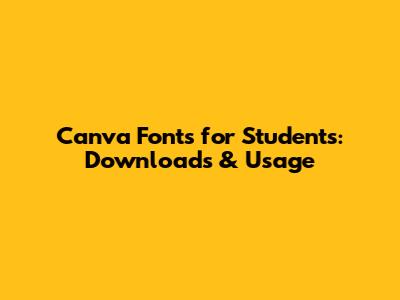
- Serif Fonts: These fonts have small decorative strokes at the ends of the letters. They're often used for a more traditional or formal look and are great for body text in documents.
- Sans-Serif Fonts: These fonts don't have those decorative strokes, giving them a cleaner, more modern appearance. They're often used for headings, logos, and digital interfaces.
- Script Fonts: These fonts mimic handwriting and can add a personal or elegant touch to your designs. Use them sparingly, as they can be harder to read in large blocks of text.
- Display Fonts: These are decorative fonts designed to grab attention. They come in a wide variety of styles, from bold and chunky to quirky and playful. Use them for headings, posters, and other projects where you want to make a statement.
- System Fonts: In addition to Canva's built-in fonts, you can also access system fonts – the fonts that are installed on your computer. This gives you even more flexibility, especially if you have a favorite font that you use frequently.
- Consider your project: What kind of message are you trying to convey? A formal report will require different fonts than a fun social media graphic.
- Think about readability: Choose fonts that are easy to read, especially for body text. Avoid overly decorative fonts that can strain the eyes.
- Pair fonts wisely: Use a maximum of two or three fonts in a single design. Combine a serif font with a sans-serif font for a classic look, or choose two fonts from the same family for a cohesive feel.
- Experiment and have fun: Don't be afraid to try different fonts and see what works best for your project. Canva makes it easy to preview fonts, so you can quickly see how they'll look in your design.
Hey guys! Let's dive into the world of Canva fonts, especially for all you students out there. Understanding how fonts work in Canva, whether you can download them, and what your options are is super important for creating awesome projects. So, let's break it down and make sure you're making the most of Canva's font features.
Can Students Download Fonts from Canva?
So, the big question: can you actually download fonts directly from Canva? The short answer is generally no. Canva is designed as an online graphic design tool, and its strength lies in providing a vast library of fonts that you can use within the platform. You don't typically download these fonts to use in other applications outside of Canva. Think of it like borrowing tools from a workshop – you use them there, but you don't take them home.
However, there's a little more to it than just a straight 'no.' If you're using a font that you've uploaded to Canva, then you already have that font on your computer (since you uploaded it!). You can certainly use that font in other applications as well. But the fonts that are part of Canva's built-in library are meant to be used within Canva itself. This approach helps Canva maintain control over licensing and ensures that the fonts are used according to their terms.
Why is this the case? Well, font licensing can be complex. Many fonts are proprietary, meaning the designers or foundries that created them own the rights. Canva pays for licenses to allow its users to use these fonts within their platform. Allowing users to download these fonts freely would violate these licensing agreements. It's all about respecting the intellectual property of the font designers.
For students, this means you'll primarily be working with fonts directly inside the Canva interface. This isn't necessarily a limitation, though! Canva's library is huge, offering a wide variety of styles from classic serifs to modern sans-serifs, playful scripts, and more. You can easily find something that fits your project's needs. Plus, Canva makes it easy to pair fonts, so you can create visually appealing designs even if you're not a typography expert.
If you absolutely need to use a specific font that's not in Canva's library, you have the option to upload it. Just make sure you have the proper license to use that font! Many free font websites offer fonts that are free for personal or commercial use, but always double-check the licensing terms to avoid any legal issues. Uploading your own fonts gives you even more flexibility and control over your designs in Canva.
In summary: You can't download Canva's built-in fonts, but you can upload your own, giving you a workaround if you need a specific typeface. This approach keeps things legal and ensures everyone is playing by the rules when it comes to font usage.